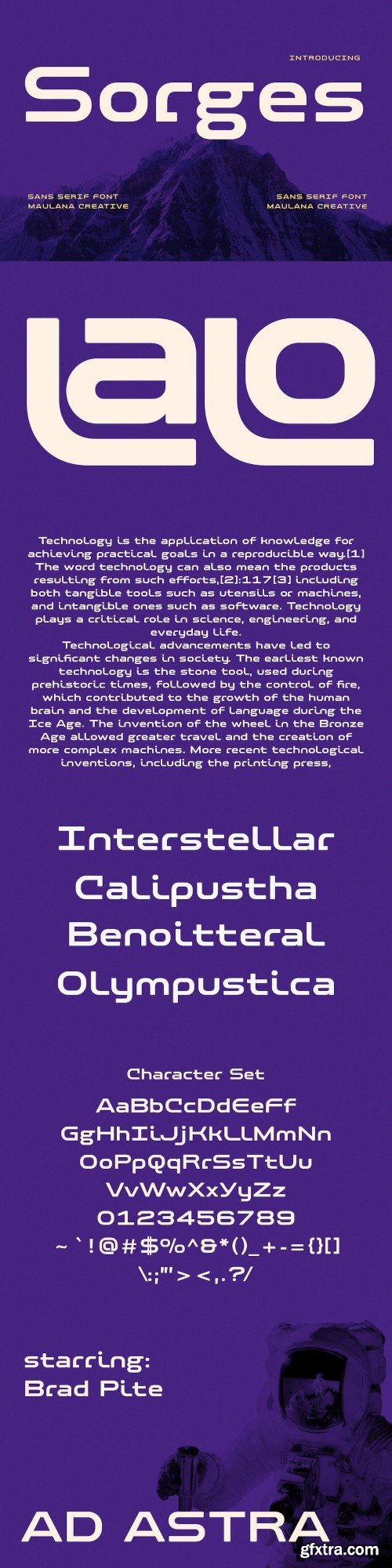
索尔斯 Sans无衬线字体
Sorges is an tech vibes soft sans display font. Regular stroke, fun character with a bit of ligatures and stylistic. To give you an extra creative work. Sorges font support multilingual more than 100+ language. This font is good for logo design, Social media, Movie Titles, Books Titles, a short text even a long text letter and good for your secondary text font with script or serif. Make a stunning work with Sorges font.